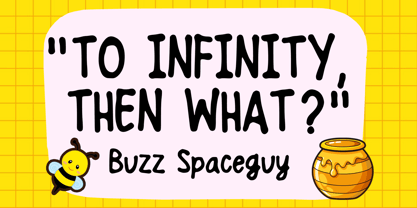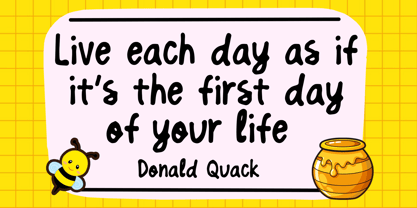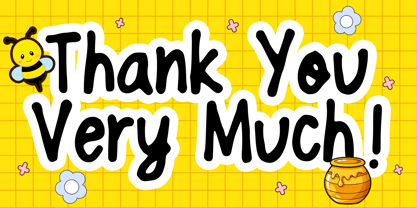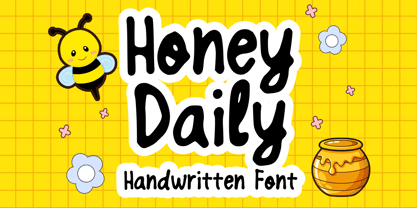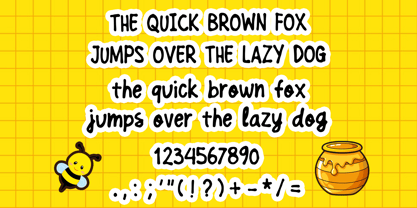
Honey Daily
by Mvmet
The Honey Daily Font Family was designed by Gabriel Valentinus and published by Mvmet. Honey Daily contains 1 styles. More about this family
Introducing Honey Daily, a whimsical handwritten font that radiates playful charm. This versatile typography marvel can transform ordinary designs into standout masterpieces. Perfectly suited for a myriad of creative projects, Honey Daily excels in enhancing stickers, revolutionizing t-shirt graphics, crafting captivating logos, and elevating magazine or book covers. Whether illustrating comics or perfecting cartoon drawings, this font works wonders. Reinvent your designs with the quirky appeal of Honey Daily and experience a unique blend of cool elegance that sets your work apart!
Designers: Gabriel Valentinus
Foundry: Mvmet
Mvmet is an Indonesia-based font studio which began making fonts in early 2020. Mvmet strives to make fonts fun and accessible for both the average computer user and professional designers, with original experimental fonts and affordable trend-setting commercial fonts. Mvmet also creates custom fonts for companies who want exclusive rights and a specific design for a typeface. Clients who have used Mvmet’s custom font services include some company in Indonesia and abroad.